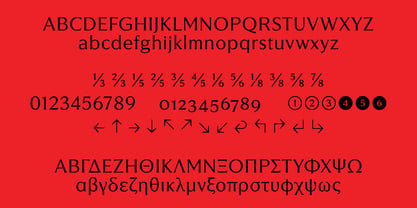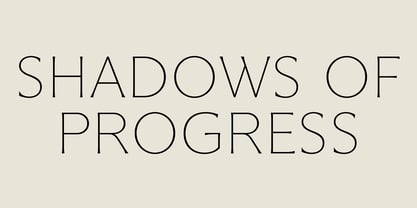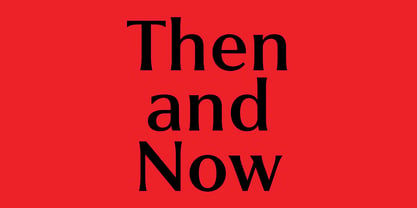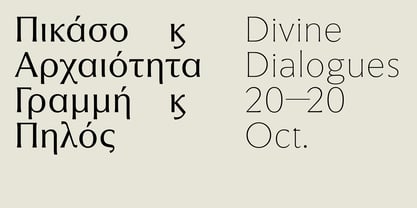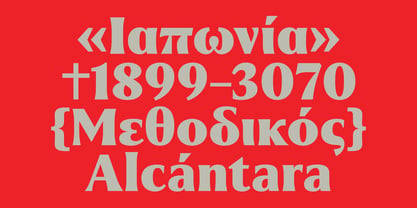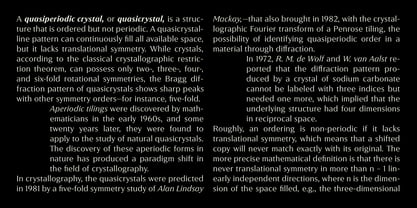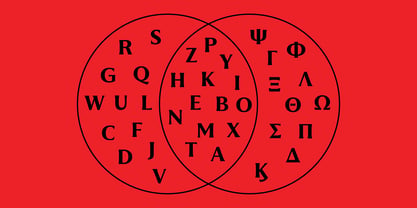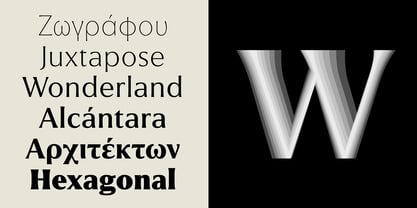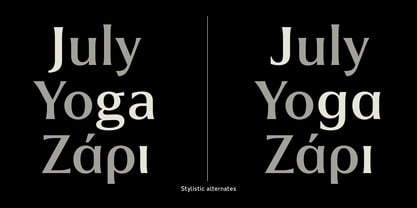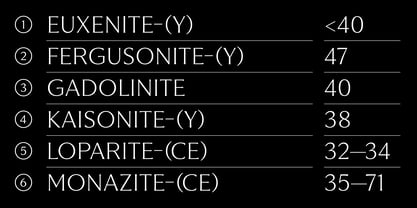
CF Angeliki
The CF Angeliki Font Family was designed by Panos Haratzopoulos and published by Fonts.GR. CF Angeliki contains 11 styles and family package options. More about this family
CF Angeliki is an original, contrasted typeface that strikes a balance between serif and sans-serif categories. Its defining feature is the slight widening at the terminals, ending in barely noticeable serifs that give it a distinct sense of elegance and refined finish. These subtle flares also lend the letters an engraved appearance, especially in lighter weights.
Another key characteristic is its consistent x-height across all weights (from Thin to Black), along with relaxed letter spacing in text settings. This ensures better on-screen readability, particularly when mixing different styles (e.g., Regular with Bold), avoiding the illusion of inconsistent lowercase letters in small sizes.
While some might draw comparisons to Hermann Zapf’s classic Optima, its origins are entirely different. CF Angeliki was initially commissioned for a project where it needed to harmonize in size with a monolinear sans-serif (also custom-designed). The monolinear was given contrast, and the resulting proportional typeface was refined with subtle terminal flares to help Greek and Latin characters blend seamlessly—since serifs are not inherent to lowercase Greek letterforms.
The original client project fell through, so the typeface was redesigned under the same principles, expanded with additional weights, and eventually released. For its launch, Panos Haratzopoulos collaborated on the design with Giorgos Fyllis, while Tasos Varipatis handled production.
CF Angeliki is suitable for both headlines and body text, whether in print or on screen, and is designed to add sophistication and gravitas to any project it graces.